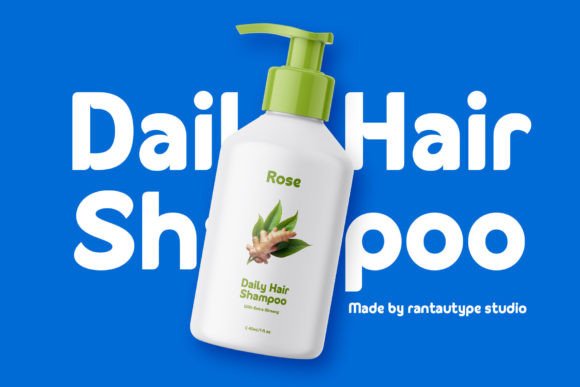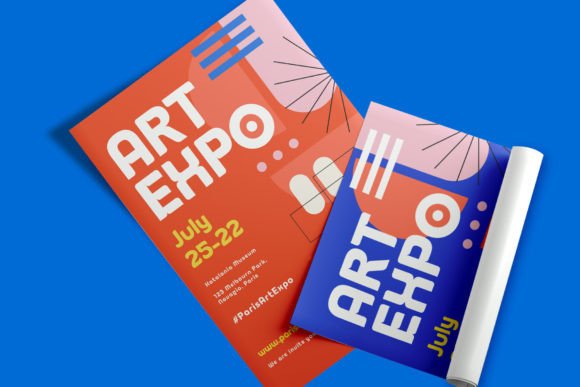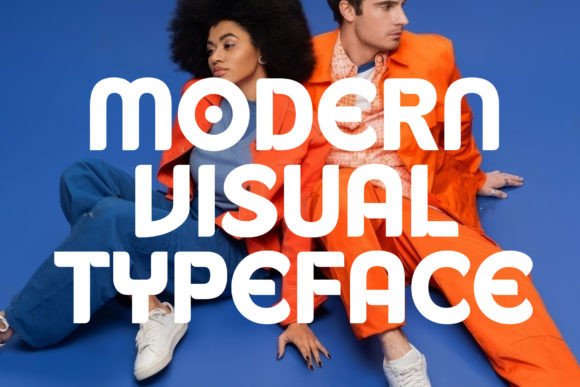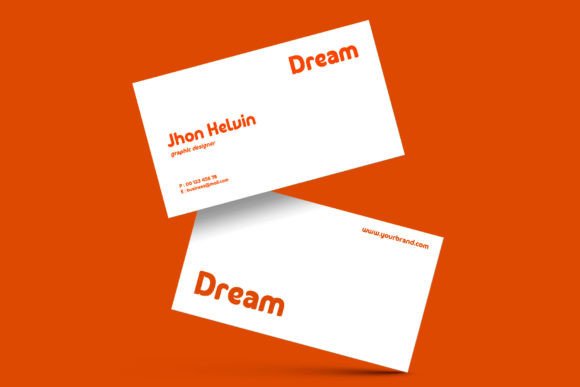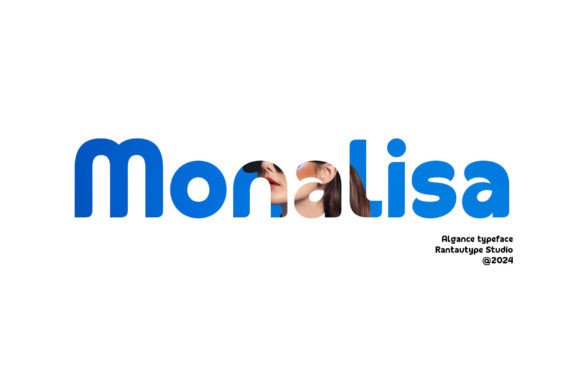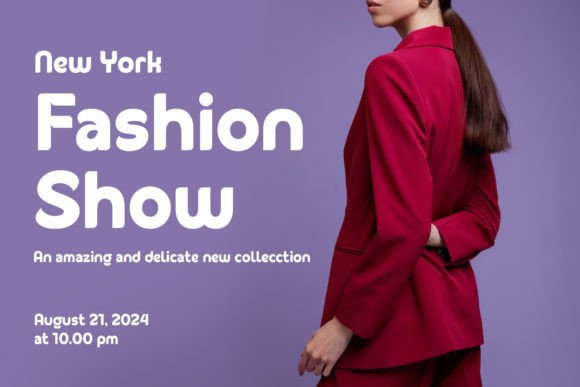
Introducing Algance Font: The Perfect Choice for Modern Designers
In the world of typography, a good font can make all the difference in a design project. For designers and crafters looking for a modern and stylish sans serif font, Algance is an excellent choice. This contemporary font boasts unique details, contrasting shapes, and a classy display that is sure to elevate any creative endeavor.
What Makes Algance Font Stand Out?
Algance is a versatile font that is perfect for a wide range of design projects, from logos and advertisements to watermarks on photography, stationery, and branding projects. Its industrial touch makes it an ideal choice for designs that require a modern and edgy feel. The font’s unique details and contrasting shapes give it a distinctive look that sets it apart from other sans serif fonts.
Key Features of Algance Font
- Contemporary Design: Algance has a modern and sleek design that is perfect for designers looking for a fresh and stylish font.
- Unique Details: The font features unique details that give it a distinctive look and make it stand out from other sans serif fonts.
- Contrasting Shapes: The contrasting shapes in Algance add depth and visual interest to the font, making it perfect for designs that require a bit of sophistication.
- Classy Display: The font’s classy display makes it perfect for use in headlines, titles, and other display text.
Algance is a versatile font that can be used in a wide range of design projects, including:
- Logos: The font’s modern and edgy design makes it perfect for logos that require a bit of sophistication.
- Advertisements: Algance is an excellent choice for advertisements that require a bold and eye-catching font.
- Watermarks on Photography: The font’s classy display makes it perfect for use as a watermark on photography.
- Stationery: Algance is a great choice for stationery designs that require a modern and stylish font.
- Branding Projects: The font’s unique details and contrasting shapes make it perfect for branding projects that require a distinctive look.
- Display and Magazine: Algance is an excellent choice for display and magazine designs that require a bold and eye-catching font.
- Invitations: The font’s classy display makes it perfect for use in invitations and other formal designs.
- Corporate Brand: Algance is a great choice for corporate brands that require a modern and sophisticated font.
- Product Design: The font’s industrial touch makes it perfect for product designs that require a modern and edgy feel.
- Labels: Algance is an excellent choice for label designs that require a bold and eye-catching font.
- Business Projects: The font’s unique details and contrasting shapes make it perfect for business projects that require a distinctive look.
Why Choose Algance Font?
There are many reasons why designers and crafters should choose Algance font for their next design project. Here are just a few:
- Versatility: Algance is a versatile font that can be used in a wide range of design projects.
- Unique Design: The font’s unique details and contrasting shapes give it a distinctive look that sets it apart from other sans serif fonts.
- Modern and Edgy: Algance has a modern and edgy design that is perfect for designers looking for a fresh and stylish font.
- Easy to Read: The font is easy to read, making it perfect for use in body text and other long-form content.
In conclusion, Algance font is a modern and stylish sans serif font that is perfect for designers and crafters looking for a versatile and unique font for their next design project. Its industrial touch, unique details, and contrasting shapes make it an excellent choice for a wide range of design projects, from logos and advertisements to watermarks on photography and branding projects. With its classy display and easy-to-read design, Algance is a great choice for any creative endeavor.